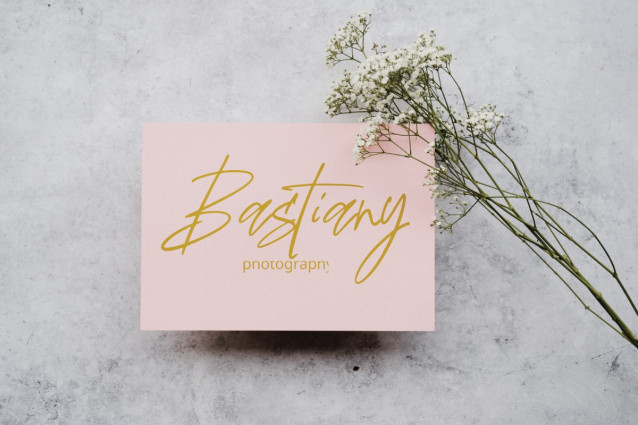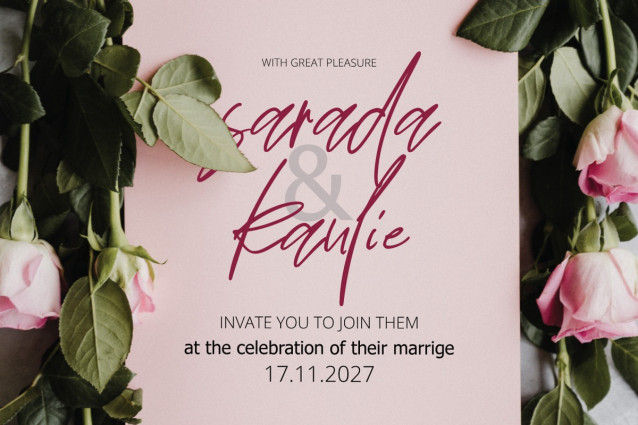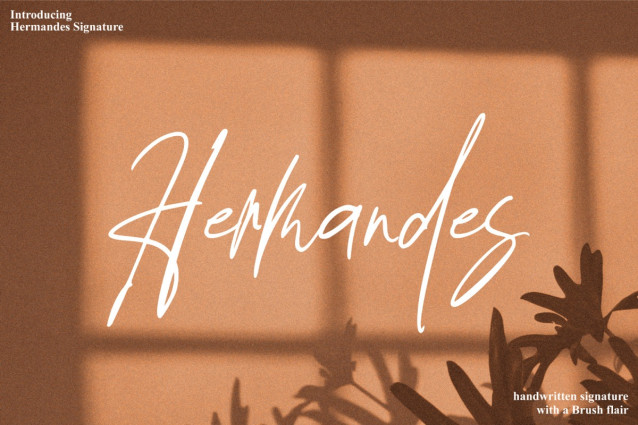
Hermandes Signature Font
Hermandes Signature Font is a typeface with personality. You can use it as a logo, badge, insignia, packaging, headline, poster, etc The alternative characters in this font were divided into several OpenType features such as Stylistic Alternates, Stylistic Sets, and Ligature.